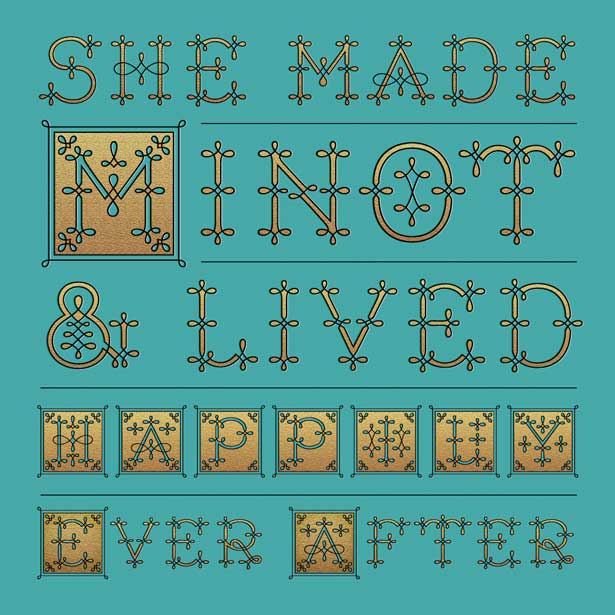
Jessica's Hische's new baby: Minot display typeface
Letterer, illustrator and self-confessed 'crazy cat' Jessica Hische has just revealed her new project - a display typeface called Minot, named after the French word for "child"
Talking about the creation of Minot Font on her website, Hische says:
"Minot is a new display typeface that I had a ton of fun making and hope you guys have just as much fun playing with it. The typeface comes in three styles: Outline, Fill, and Box, and they're meant to be used together to create multi-color headlines.
"I had fun messing with it myself and making examples to show you guys how creative you can get with it. I look forward to seeing this one on your wedding invites, baby announcements (minot means “child” in French) wine labels... just about anything you want to make fancy!"